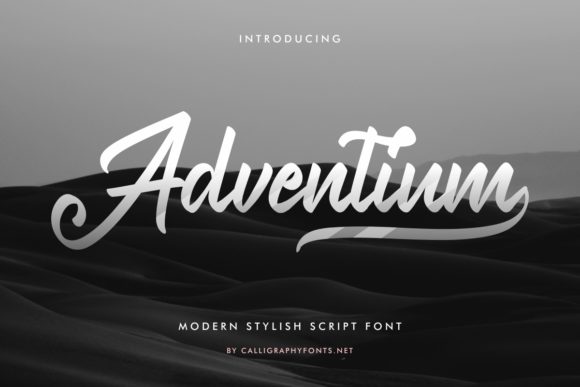
The Elusive Perfect Font: My Encounter with Adventium
I still remember the countless hours I spent searching for the perfect font for a wedding invitation project. My client wanted something elegant, yet playful; something that would make their special day stand out. I scoured the internet, tried out dozens of fonts, but none seemed to fit the bill. That was until I stumbled upon Adventium, a dazzling and cursive calligraphy typeface that stole my heart. ✨
What is Adventium?
Adventium is a beautiful, cursive calligraphy font with characters that dance along the baseline. Its elegant and flowing design makes it perfect for various purposes such as logos, wedding invitations, headings, t-shirts, letterhead, signage, labels, news, posters, badges, and so much more. The best part? It’s PUA encoded, which means you can access all of the glyphs and swashes with ease! ✅
My Honest Review of Adventium
The Good: What I Love About Adventium
- ✨ Elegant and sophisticated design that’s perfect for high-end projects
- ✅ Wide range of uses, from logos to posters and more
- 🎉 PUA encoded for easy access to glyphs and swashes
- 💻 Highly versatile and can be used for both digital and print projects
The Not-So-Good: Small Quirks and Limitations
While Adventium is an amazing font, there are a few things to keep in mind. 🤔
- ⚠️ Some characters may not work well in smaller font sizes, so it’s best to use it at larger sizes (24px and above)
- ⚠️ Limited availability of certain characters, such as ligatures
The Story Behind Adventium
Adventium was designed by a team of talented typographers who wanted to create a font that would capture the essence of elegance and sophistication. Inspired by traditional calligraphy, Adventium features beautiful swashes and glyphs that add a touch of luxury to any project. The design process involved countless hours of research, experimentation, and refinement to ensure that the font would meet the needs of designers and crafters alike.
Q: What is PUA encoding, and how does it work?
A: PUA (Private Use Area) encoding is a way of accessing additional characters and glyphs in a font. In the case of Adventium, PUA encoding allows you to access a wide range of swashes and glyphs that can be used to customize your designs.
Q: Is Adventium suitable for body text?
A: While Adventium is a beautiful font, it’s best suited for headlines and titles rather than body text. Its elegant design and flowing script make it perfect for adding a touch of sophistication to your projects, but it may not be the best choice for longer blocks of text.